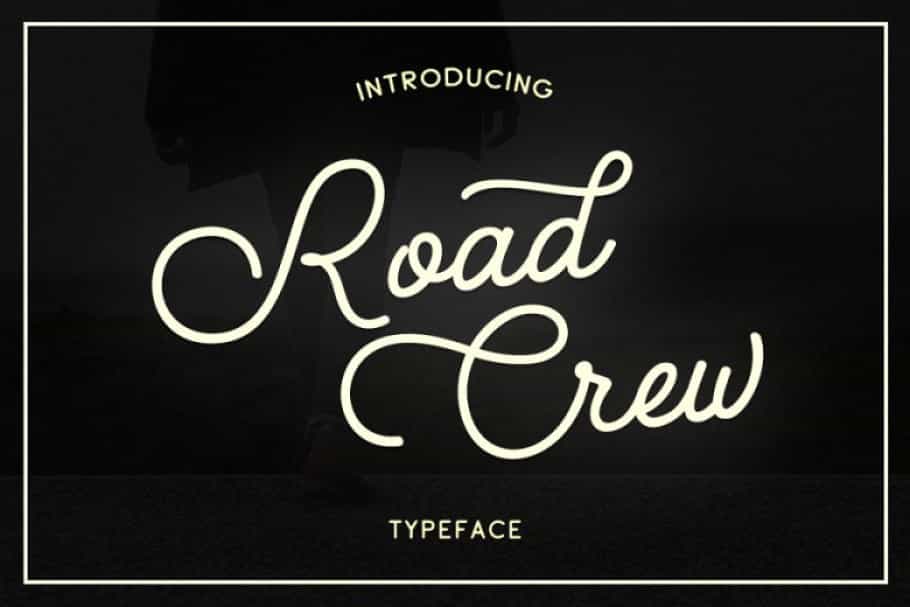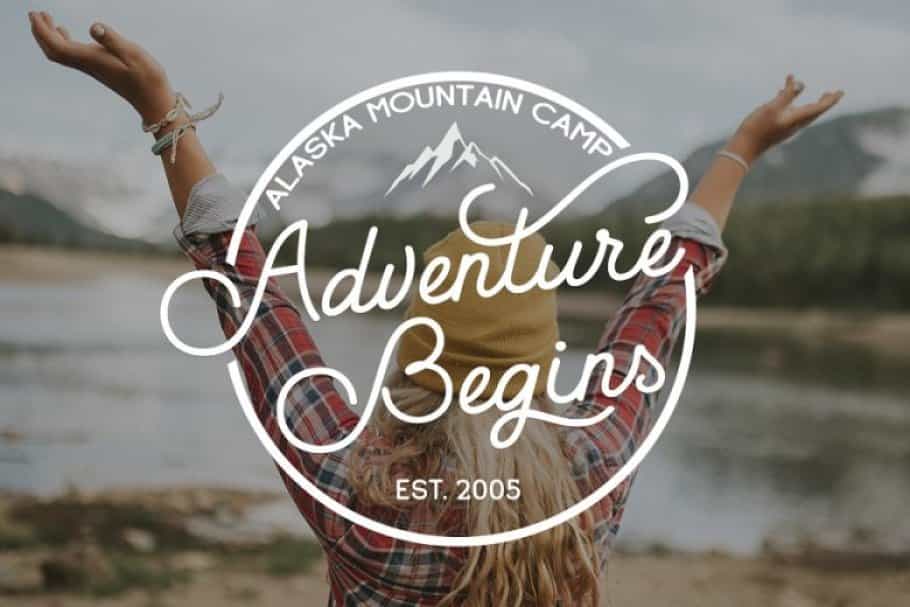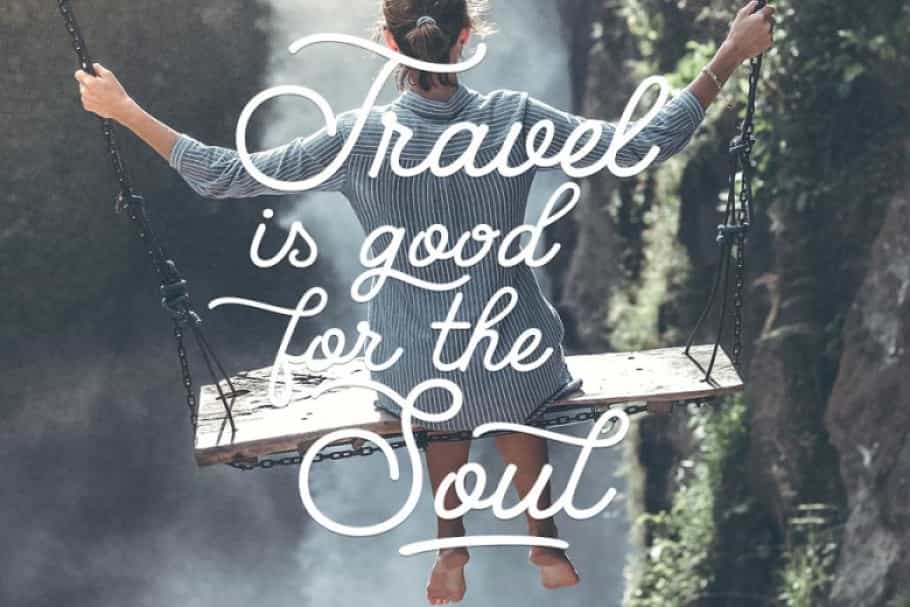
Discover Road Crew Script Font, part of the Calligraphy Handwritten collection—a versatile and unique font perfect for adding a personal touch to your projects. Download it for free and enjoy crafting designs with style, from invitations to social media posts. This font is available exclusively for personal use, giving you the freedom to create without limits. Unlock your creativity with Road Crew Script Font today!
Introducing Road Crew Font. It has been created by Larin Type Co. this is a premium font, it is available for sale on creativemarket, but today you can download it for free. This font is best for branding and decoration of any project, it is perfect for wedding invitation or your blog. Besides, you can design a logo or an attractive frame for your house with their assistance.